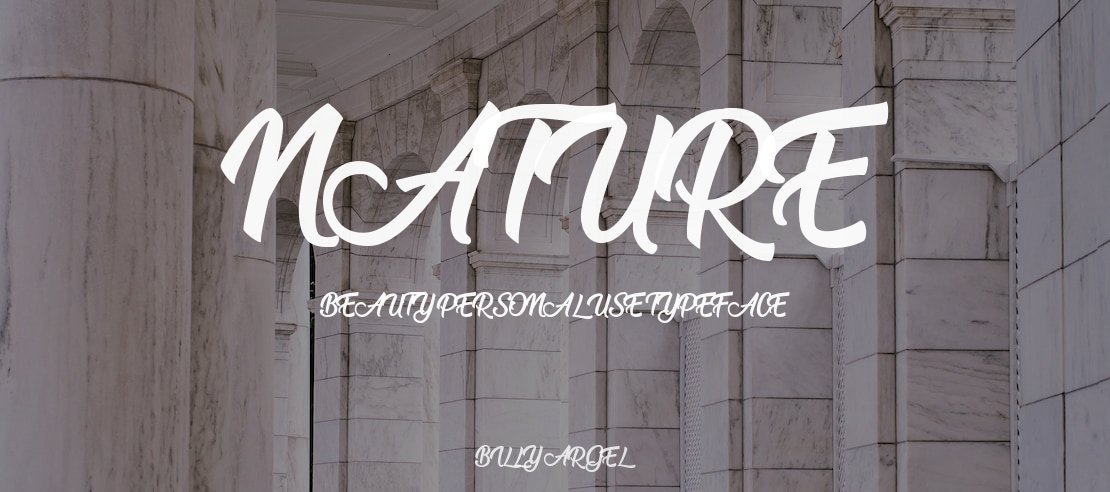
About Nature Beauty Font
Nature Beauty Font is a graceful handwritten script typeface that brings a natural and elegant touch to creative designs. Its flowing strokes and smooth curves make it ideal for logos, invitations, quotes, branding, and social media graphics. The font conveys a sense of warmth and creativity, helping designs feel personal and visually appealing. Nature Beauty Font works well in both digital and print projects where a soft, artistic style is desired.
- Nature Beauty Font Regular
- Nature Beauty Font Bold
- Nature Beauty Font Italic